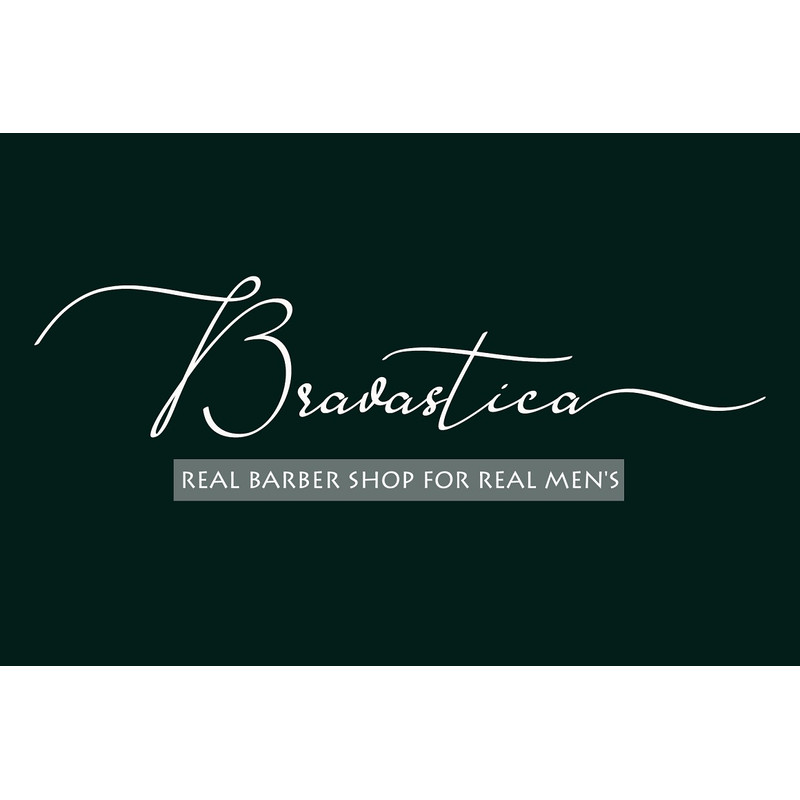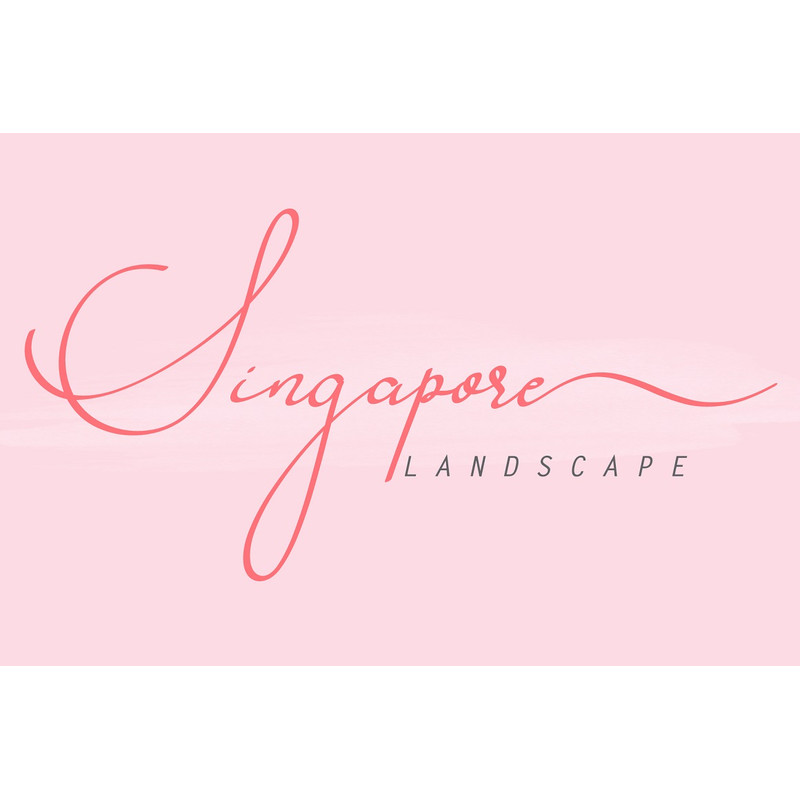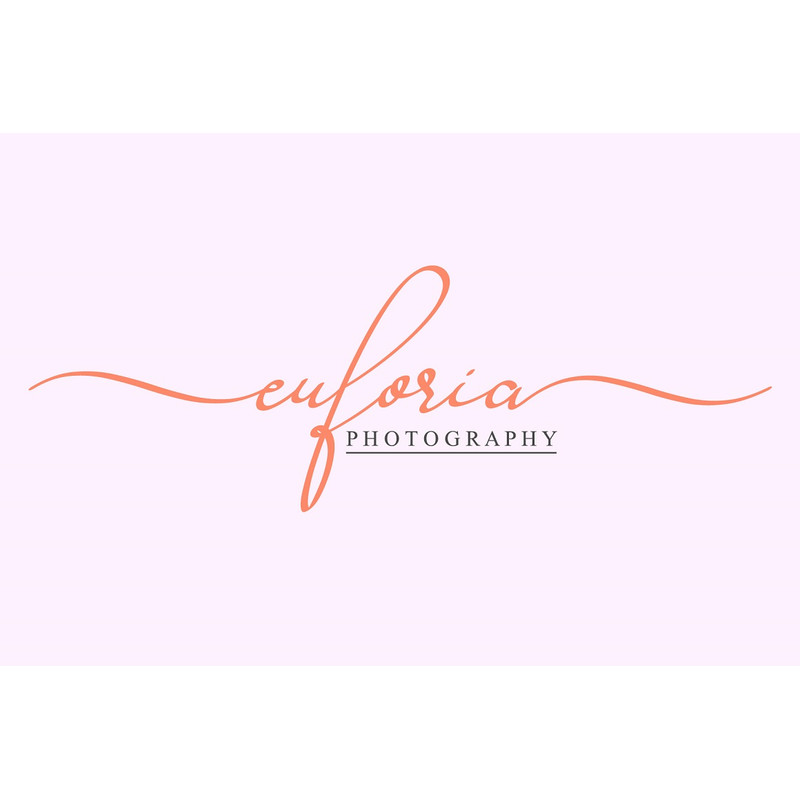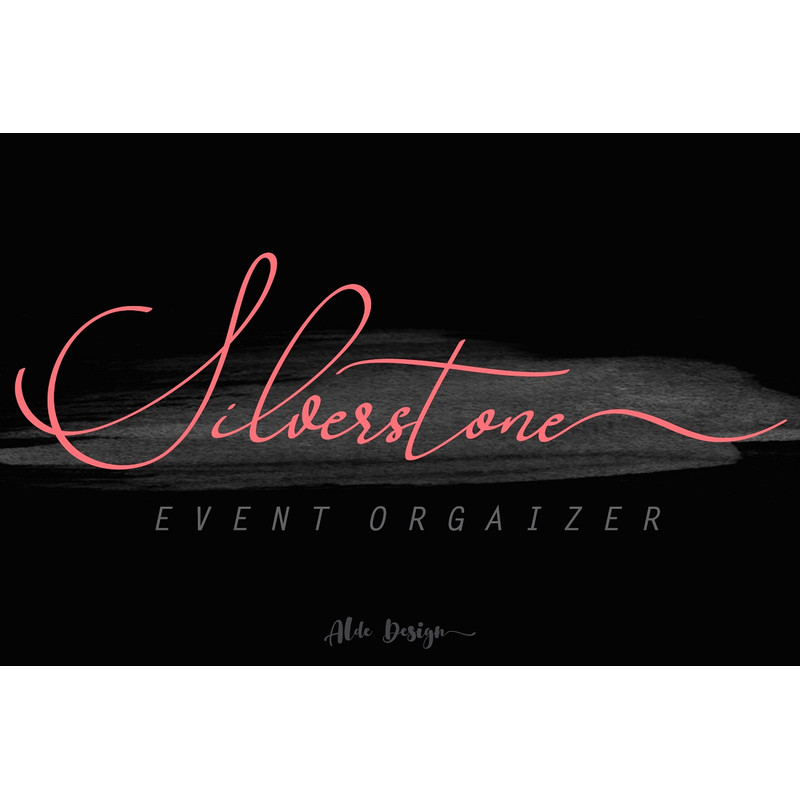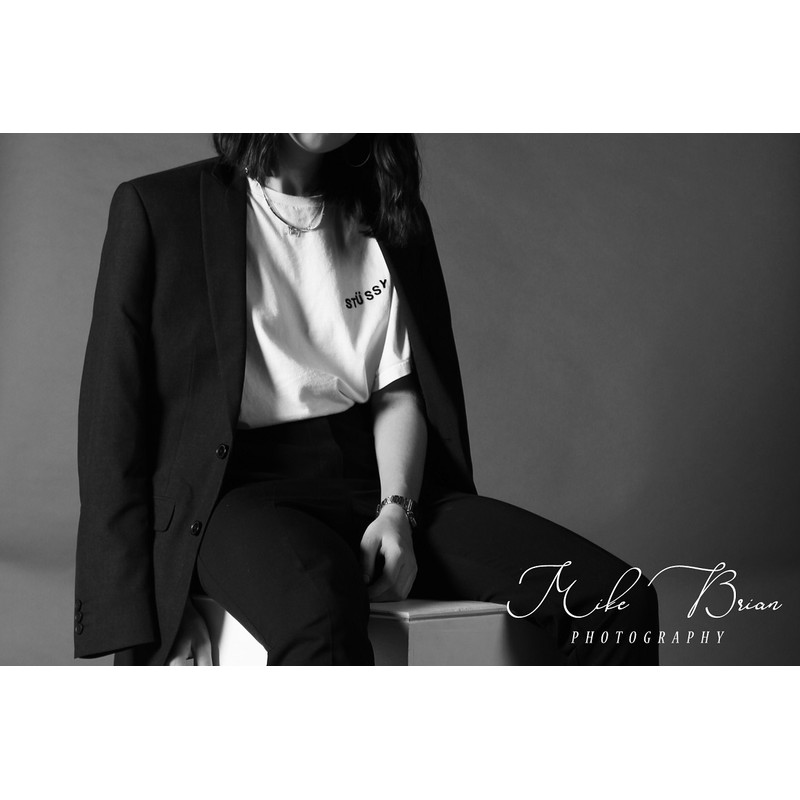
Singapore Landscape Trending Fonts - Digital Font
Singapore Landscape is a font with simple and classy taste, comes with opentype features such as ligatures, swash, and titling. We keep this font looks classy, readable, elegant, stylish, catchy and absolutly easy to use.
Singapore Landscape is the great choice for watermark on photography, signature or signature logo design, album cover, business card, quotes, and many other design project.